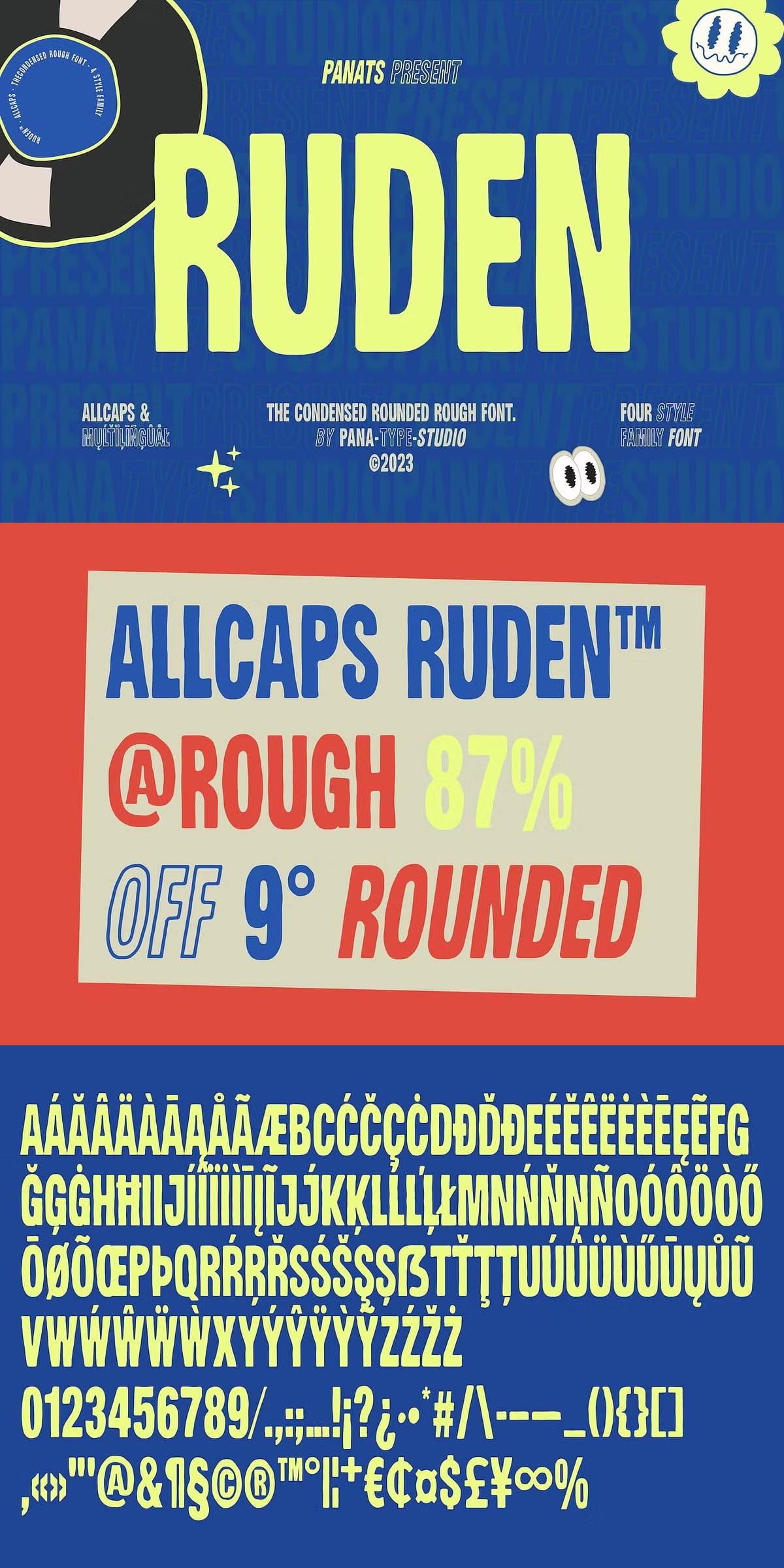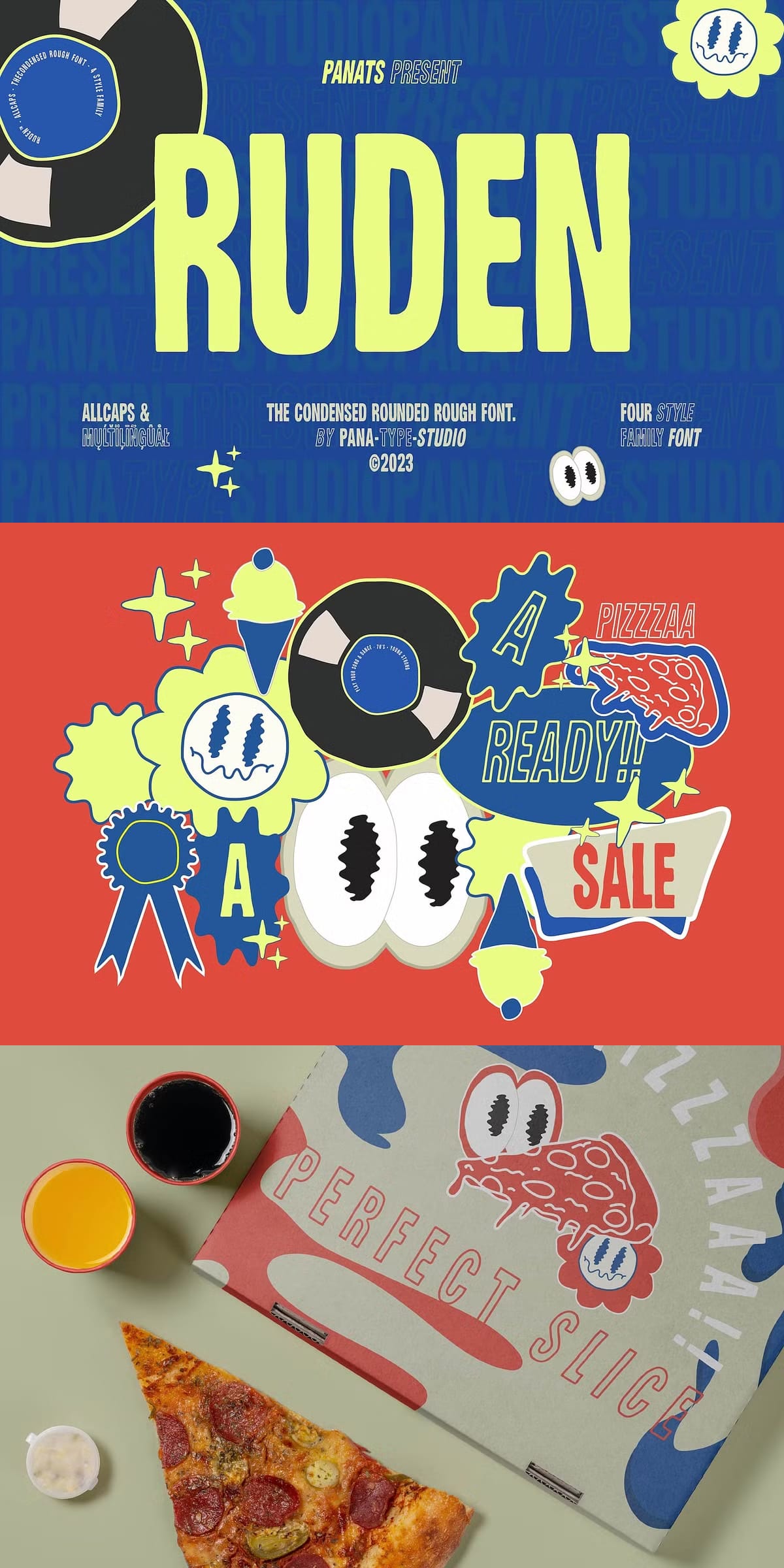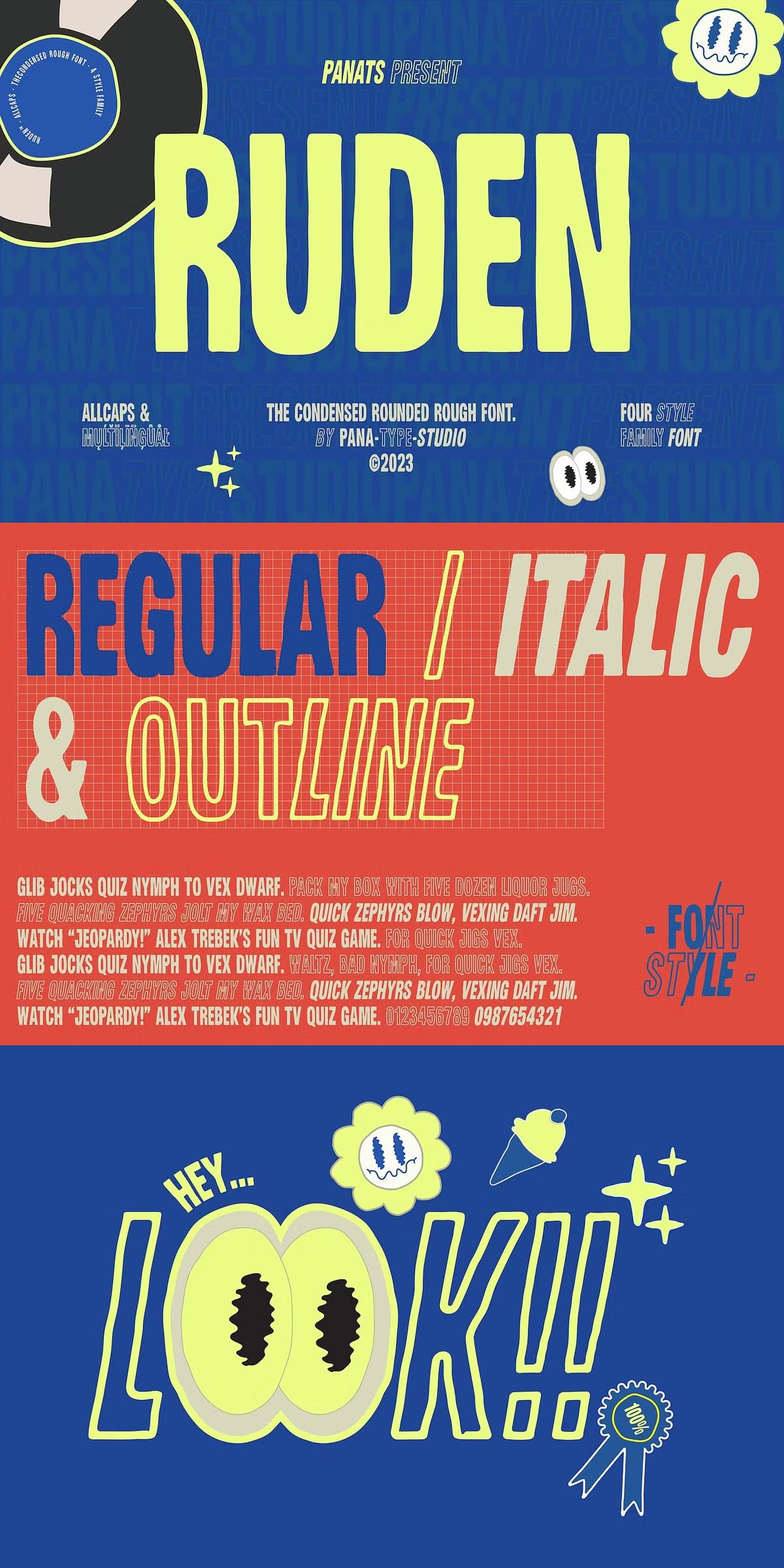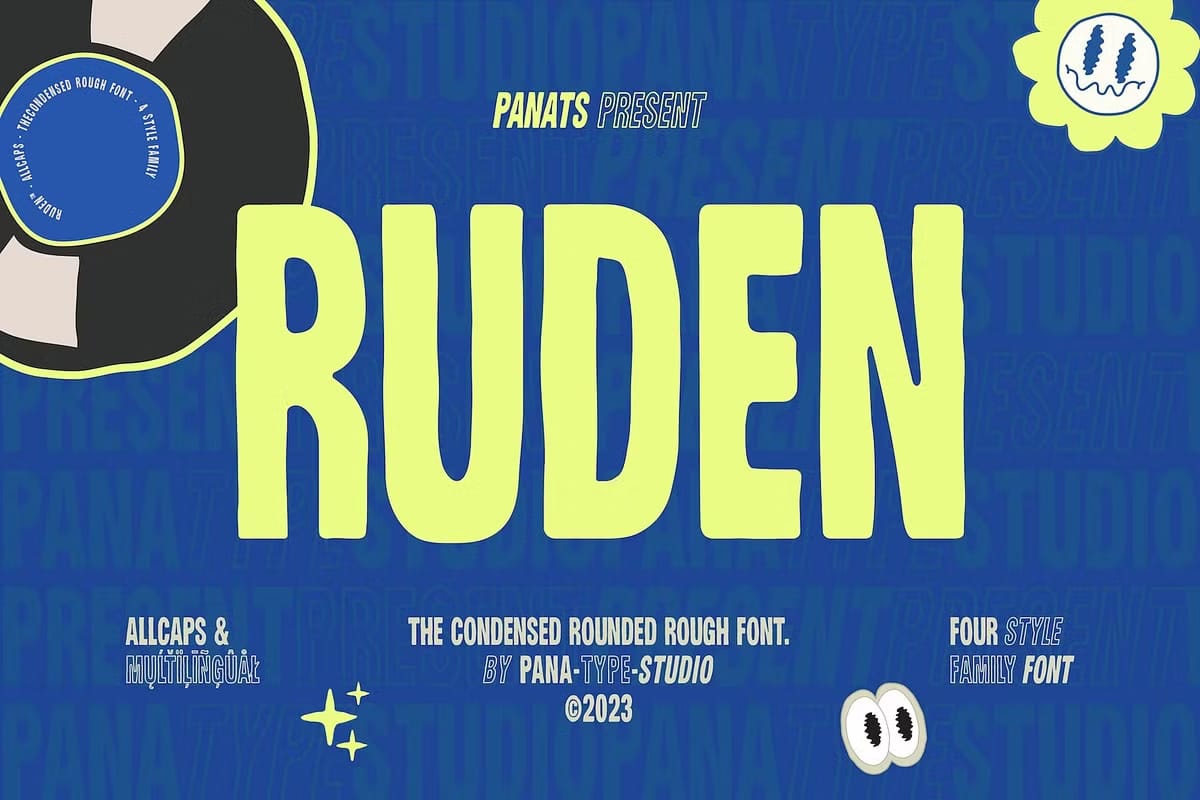
Elevate your design projects with RUDEN, a unique condensed rounded rough typeface that embodies an organic, hand-written style. This versatile font family is designed to add character and warmth to your typography, making it perfect for a wide range of creative applications.
Key Features of RUDEN
RUDEN stands out with its distinctive design and flexibility. Here are the key features that make this typeface an essential addition to your design toolkit:
- Four Family Styles: RUDEN includes four distinct styles: Regular, Italic, Outline, and Outline Italic. This variety allows you to choose the perfect style for your project, whether you need a bold statement or a subtle touch.
- Condensed Design: The condensed nature of RUDEN makes it ideal for headlines, logos, and any design where space is limited but impact is essential.
- Rounded Edges: The rounded edges of the letters give RUDEN a friendly and approachable feel, making it suitable for both casual and professional designs.
- Organic Hand-Written Style: RUDEN’s hand-written aesthetic adds a personal touch to your designs, making it perfect for projects that require a human element, such as invitations, greeting cards, and branding materials.
- Versatile Applications: Whether you are designing for print or digital media, RUDEN adapts seamlessly to various contexts, ensuring your message is communicated effectively.
Why Choose RUDEN for Your Design Projects?
RUDEN is not just a typeface; it’s a creative tool that empowers you to express your ideas with clarity and style. Its unique combination of condensed form and rounded edges makes it perfect for a variety of applications, from eye-catching posters to elegant branding. The organic hand-written style adds a layer of authenticity that resonates with audiences, making your designs more relatable and engaging.
Imagine using RUDEN for a modern logo, a vibrant social media graphic, or a charming invitation. Its versatility ensures that it can be adapted to fit any design need, allowing you to create stunning visuals that stand out from the crowd.